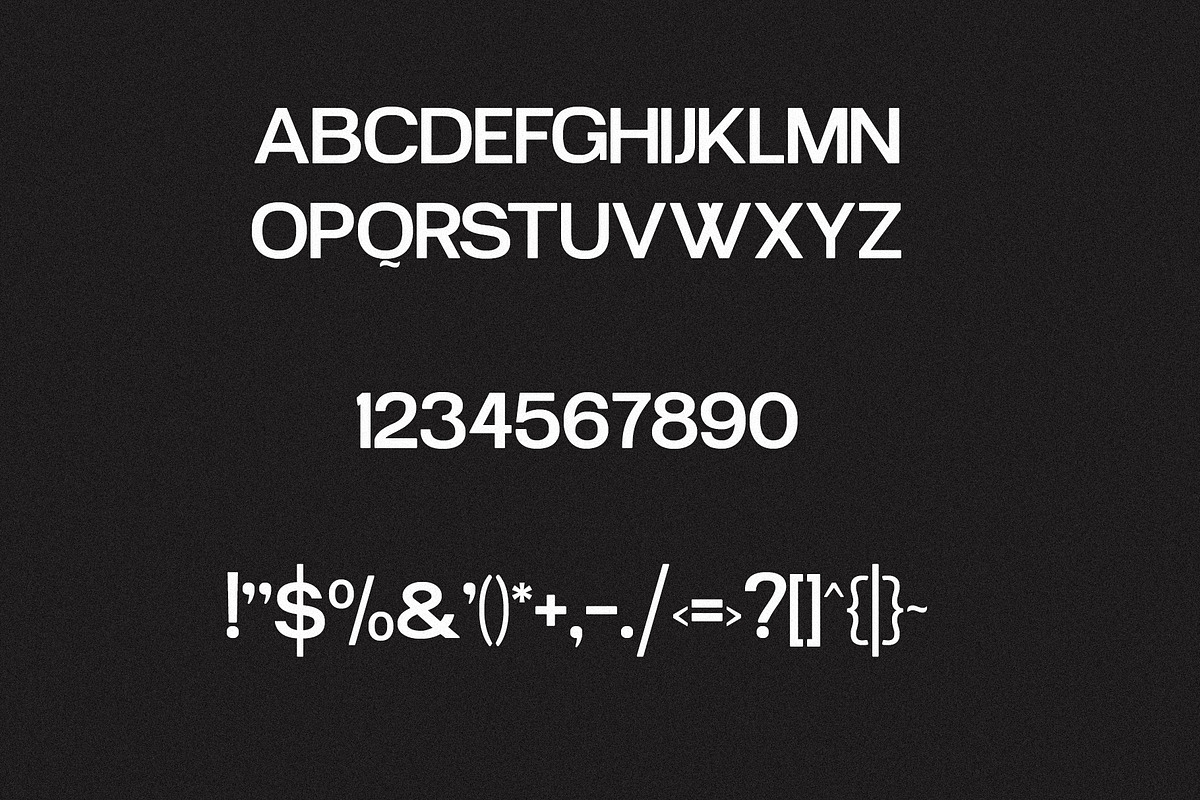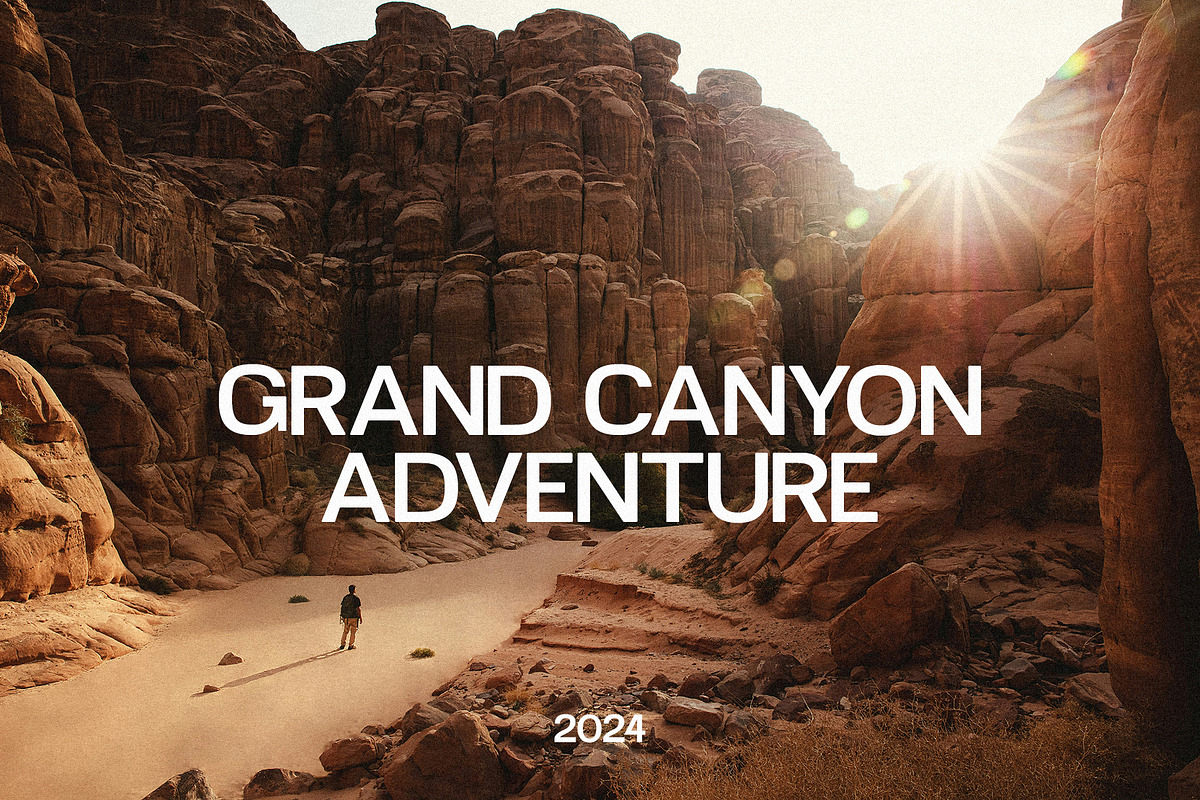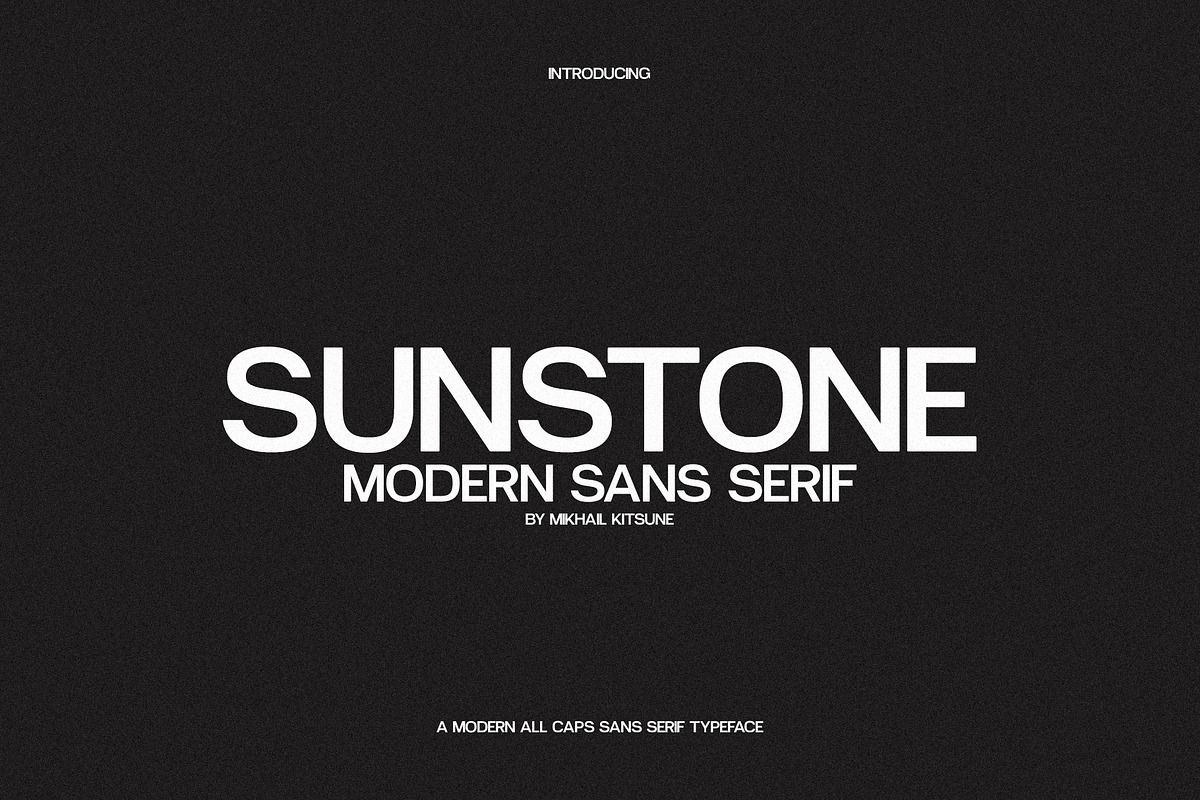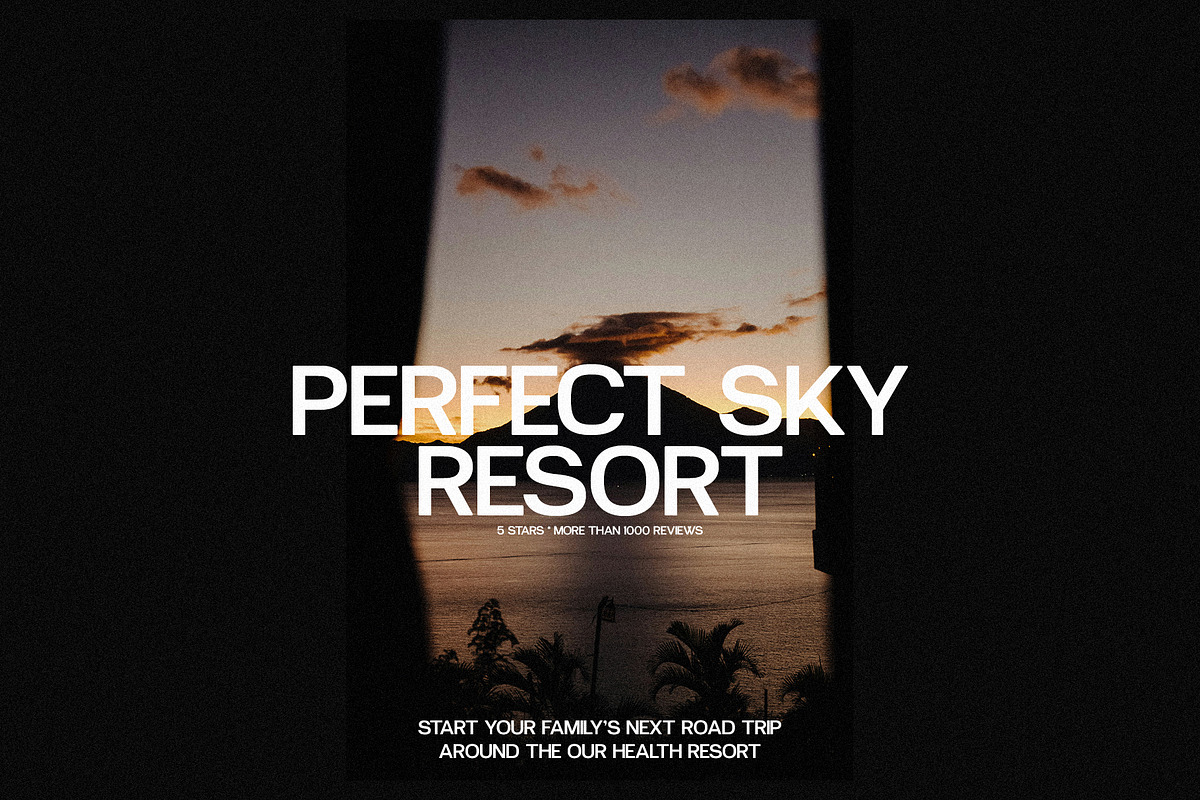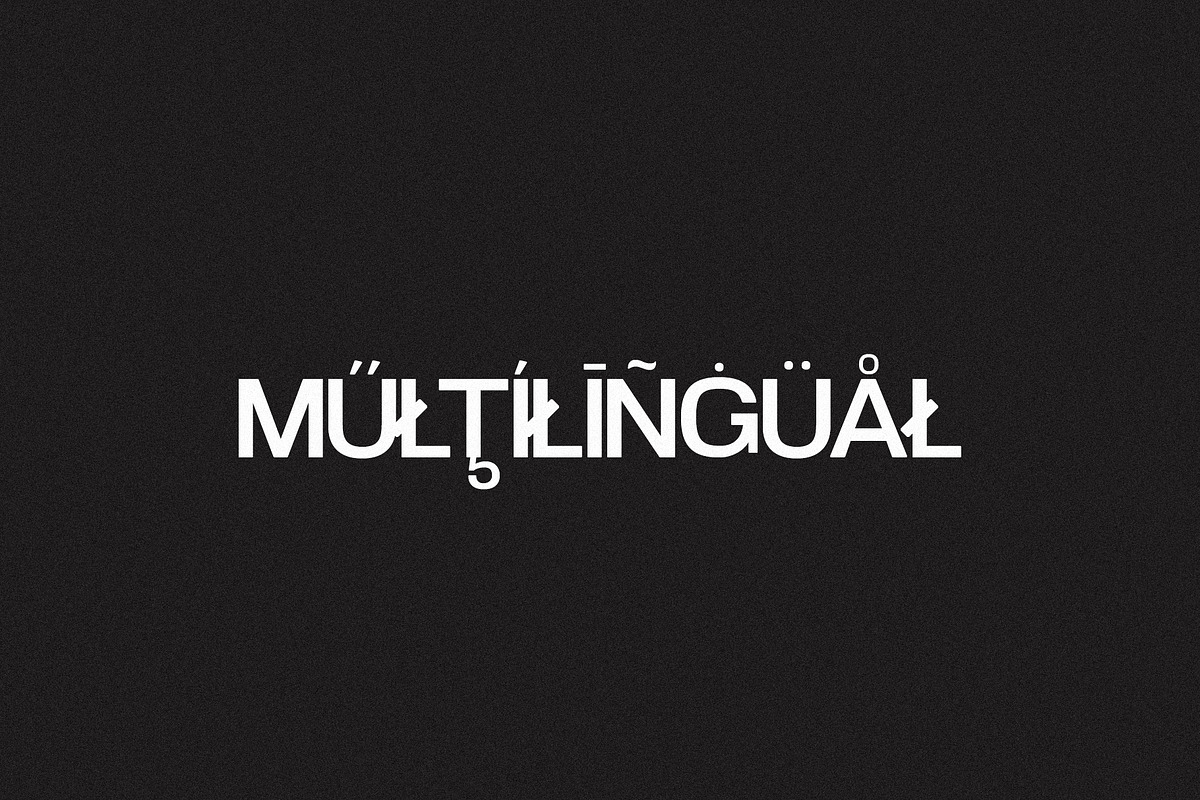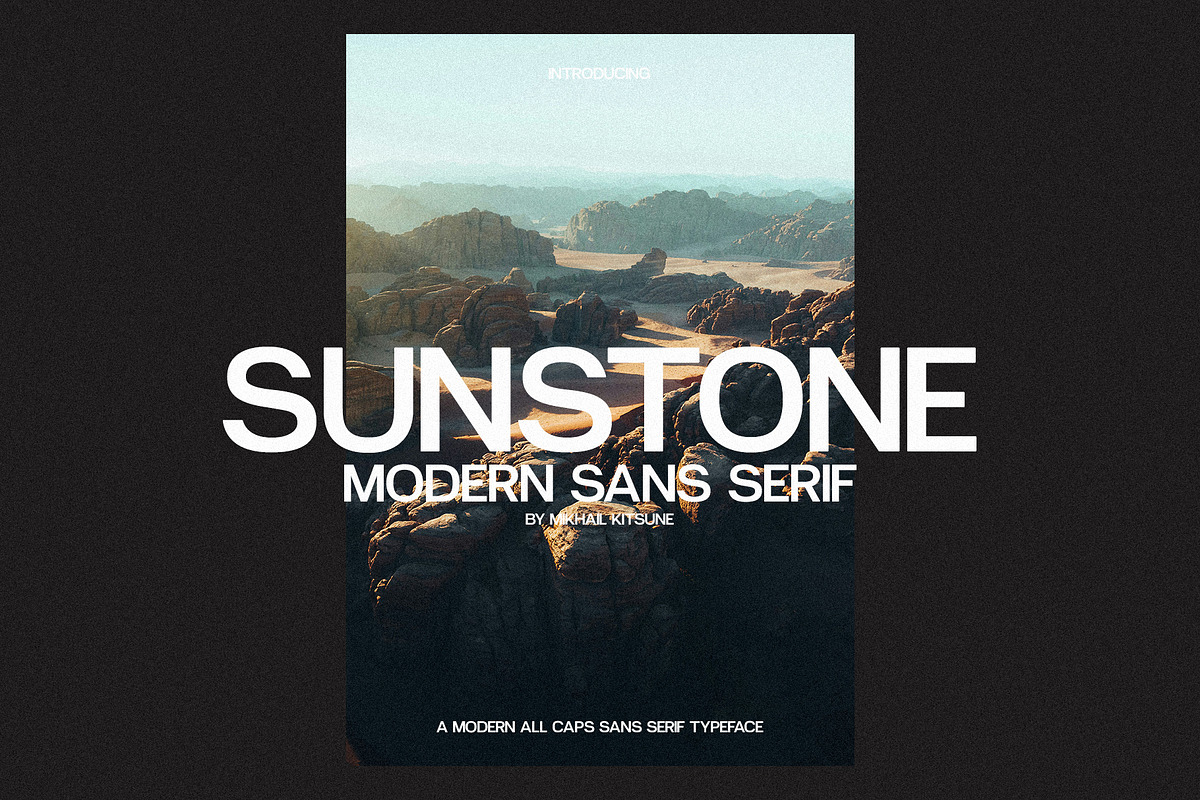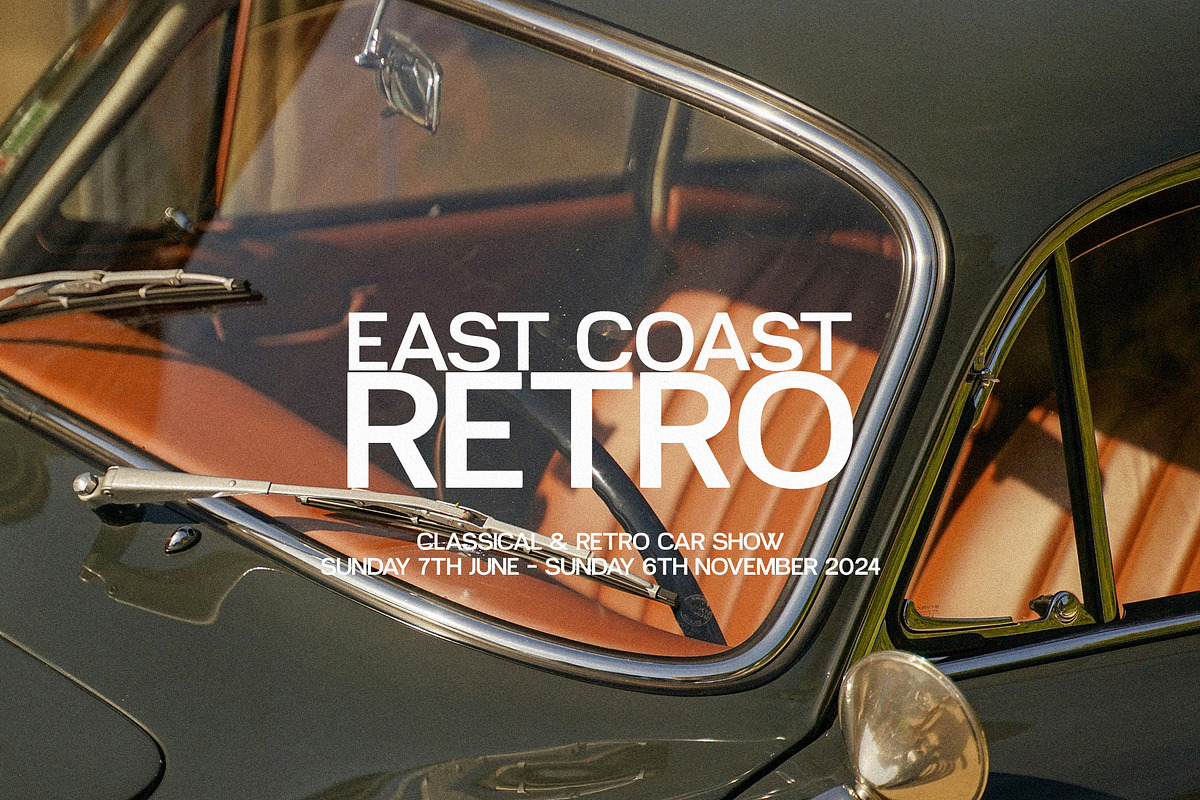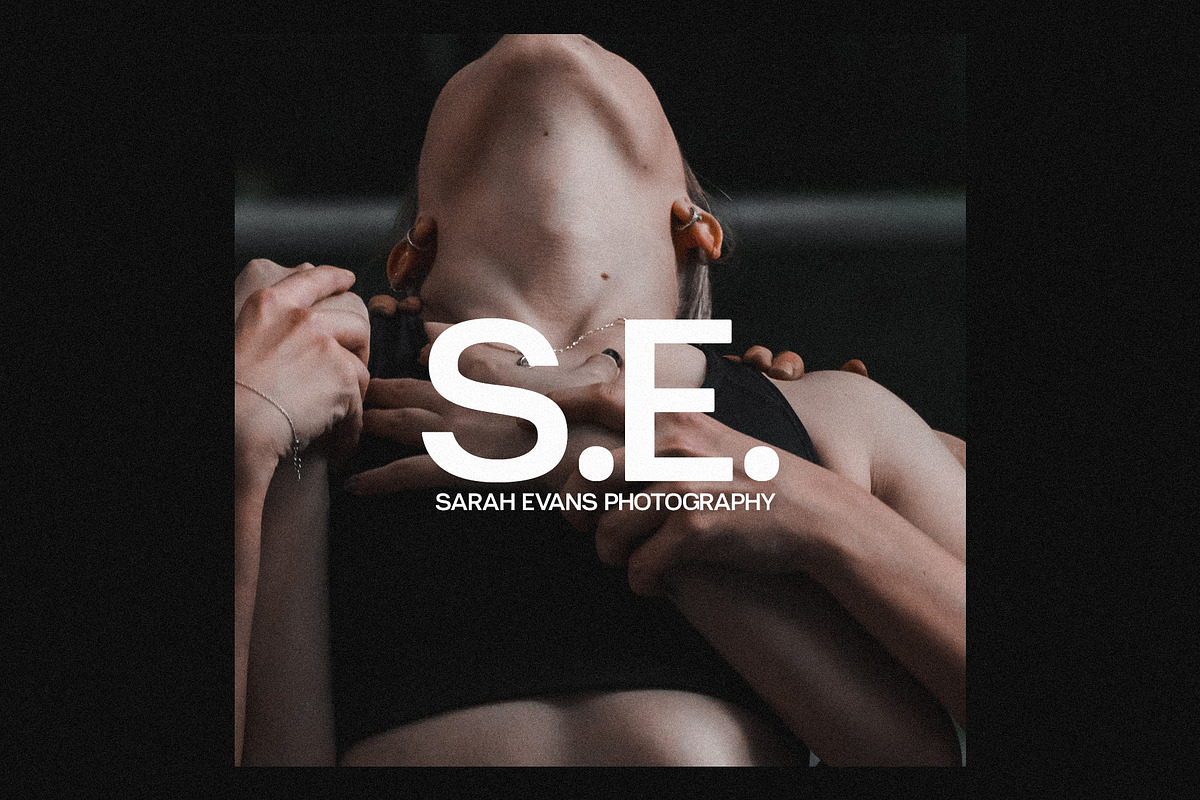
Sunstone - Modern Sans Serif
Sunstone Modern Sans Serif is a classic and elegant font that combines modern design elements with a touch of charm. With its clean lines and timeless appeal, this font is perfect for a wide range of design projects, from branding to editorial layouts. Its versatility and sophistication make it a popular choice among designers looking to add a touch of elegance to their work.